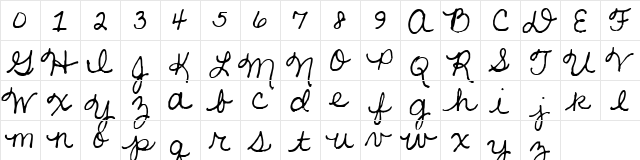
Kristen script alt alt
alt · Font Garden Kristen - fonted by Ellinor ·
Foundry Font Garden
DesignerKristen - fonted by Ellinor
Design Context for Kristen script alt Typeface
Kristen script alt brings a calligraphic fluidity to the page — its connecting strokes and expressive curves give it an unmistakably human quality.